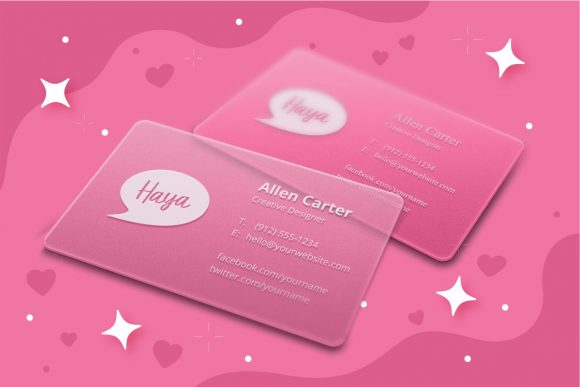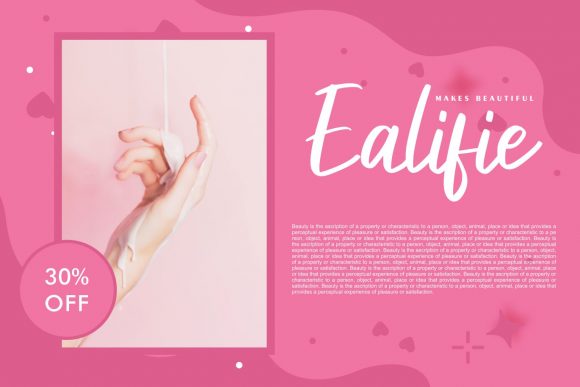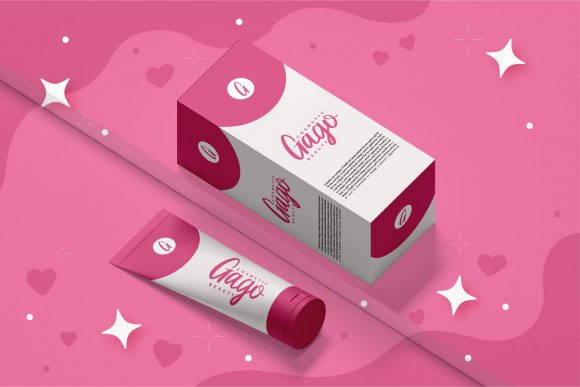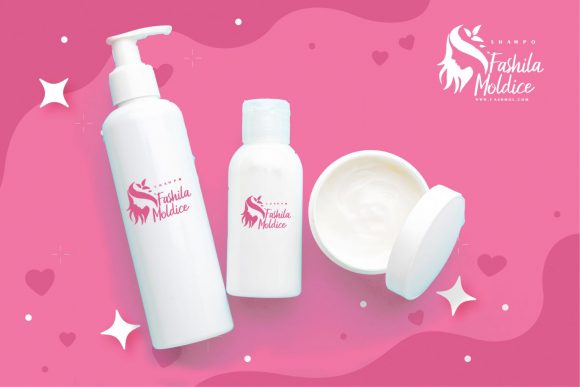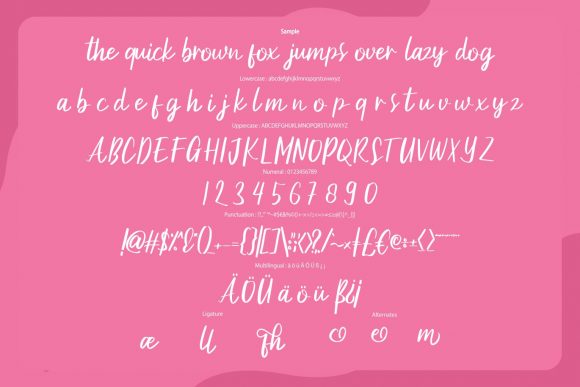
Sofhie Font
About Sofhie Font
Make your designs stand out with Sofhie, a stylish and unique handwritten font. It will look stunning on posters, thank you cards, quotes, greeting cards, logos, business cards and every other design which needs a creative touch.